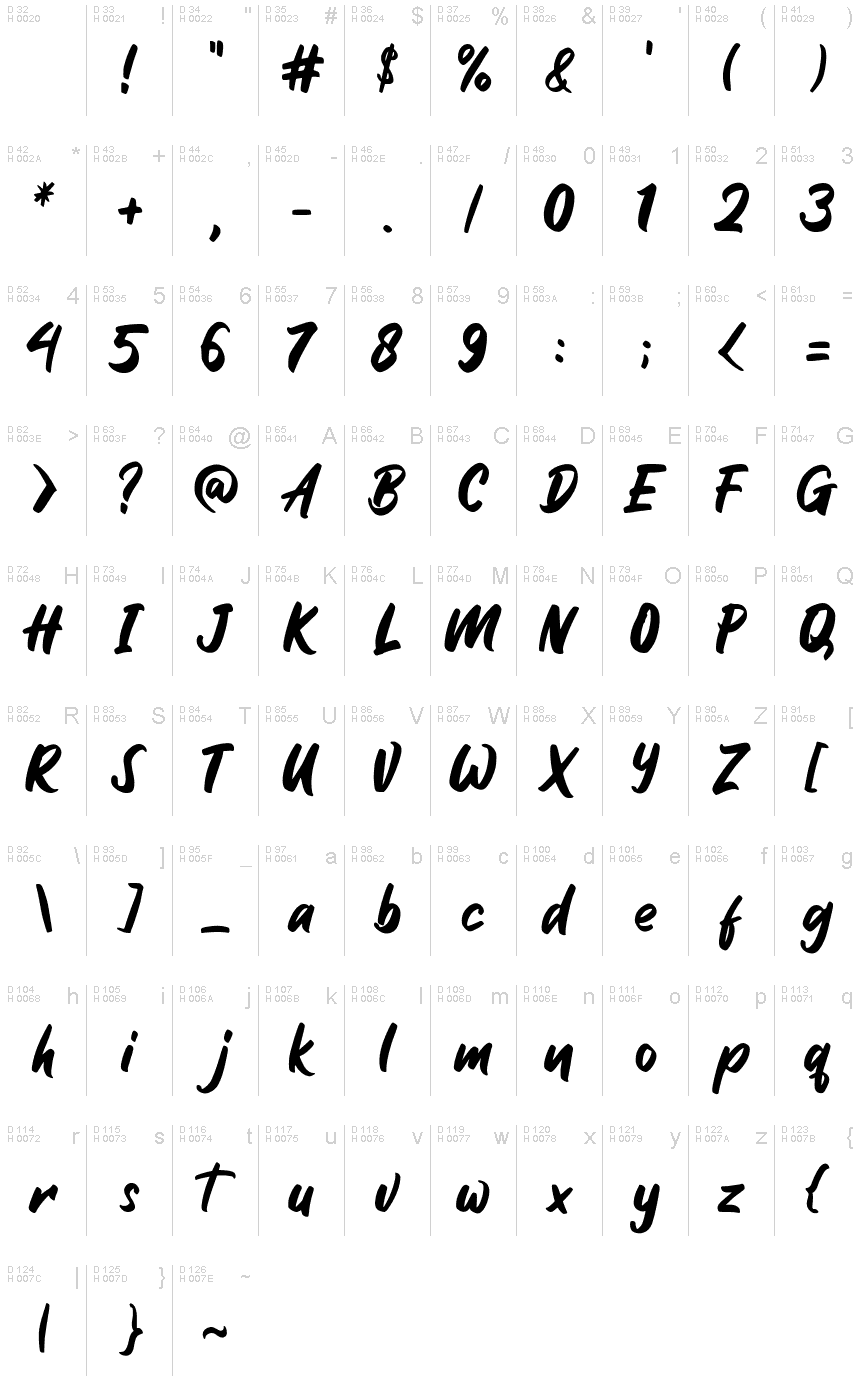
Gojacky
Embrace the whimsical charm of Gojacky, a handwritten font crafted by the talented Ikrar Bey Khubaib. With its playful loops and flowing lines, this font captures the essence of personal touch in every character. Perfect for projects that demand a dash of warmth and originality, Gojacky offers versatility for anything from heartfelt invitations to dynamic branding.
Its distinctive style ensures your creations stand out with an authentic handcrafted feel, ideal for designers seeking to inject personality into their work.